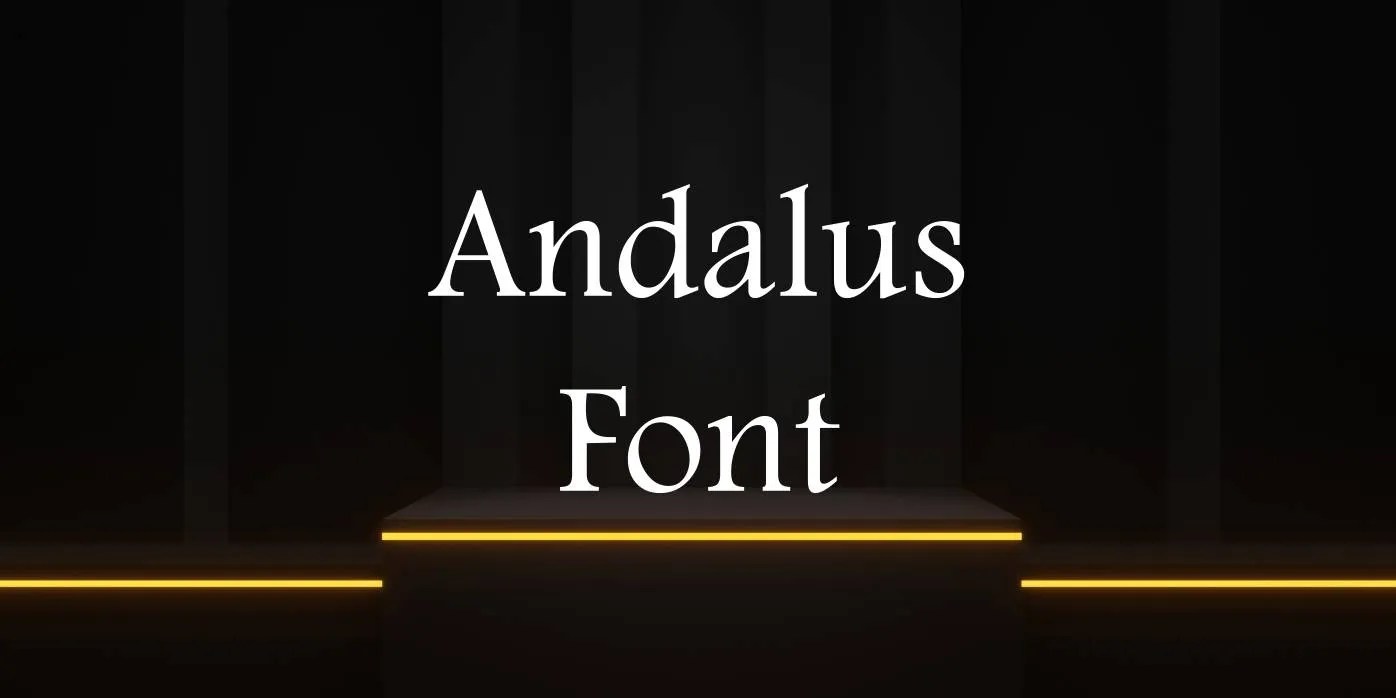
Font Arabic Andalus . Andalus, designed by mohammad alagha and mamoun sakkal and published by microsoft, is a decorative arabic display font released in 2011. Or is it both english & arabic? It has been downloaded 11739 times. Free download of aga andalus أندلس font. Please use the pulldown menu to view different character maps contained in this font. Andalus مجانا في موقع تحميل خطوط عربية عرب فونتس اكبر موقع عربي لتحميل الخطوط خط الاندلس أندلس اندلسي للورد للتصميم andalus.ttf تحميل وتنزيل andalus. 13 users have given the font a rating of 4.23 out of 5. Andalus regular is a regular truetype font. Is andalus font only for arabic? Because when we started to type in english, the font in english looked.
Is andalus font only for arabic? Free download of aga andalus أندلس font. It has been downloaded 11739 times. Or is it both english & arabic? Please use the pulldown menu to view different character maps contained in this font. 13 users have given the font a rating of 4.23 out of 5. Andalus, designed by mohammad alagha and mamoun sakkal and published by microsoft, is a decorative arabic display font released in 2011. Because when we started to type in english, the font in english looked. Andalus regular is a regular truetype font. Andalus مجانا في موقع تحميل خطوط عربية عرب فونتس اكبر موقع عربي لتحميل الخطوط خط الاندلس أندلس اندلسي للورد للتصميم andalus.ttf تحميل وتنزيل andalus.
Font Arabic Andalus مجانا في موقع تحميل خطوط عربية عرب فونتس اكبر موقع عربي لتحميل الخطوط خط الاندلس أندلس اندلسي للورد للتصميم andalus.ttf تحميل وتنزيل andalus. Is andalus font only for arabic? Please use the pulldown menu to view different character maps contained in this font. 13 users have given the font a rating of 4.23 out of 5. Andalus, designed by mohammad alagha and mamoun sakkal and published by microsoft, is a decorative arabic display font released in 2011. It has been downloaded 11739 times. Free download of aga andalus أندلس font. Andalus مجانا في موقع تحميل خطوط عربية عرب فونتس اكبر موقع عربي لتحميل الخطوط خط الاندلس أندلس اندلسي للورد للتصميم andalus.ttf تحميل وتنزيل andalus. Andalus regular is a regular truetype font. Because when we started to type in english, the font in english looked. Or is it both english & arabic?
Arabic Font File at David Ginther blog Font Arabic Andalus Or is it both english & arabic? Please use the pulldown menu to view different character maps contained in this font. It has been downloaded 11739 times. Free download of aga andalus أندلس font. Andalus, designed by mohammad alagha and mamoun sakkal and published by microsoft, is a decorative arabic display font released in 2011. Because when we started to. Font Arabic Andalus.
AlAndalus Middle East Calligraphic Fonts Konstantine Studio Font Arabic Andalus regular is a regular truetype font. Please use the pulldown menu to view different character maps contained in this font. Free download of aga andalus أندلس font. Is andalus font only for arabic? 13 users have given the font a rating of 4.23 out of 5. Andalus مجانا في موقع تحميل خطوط عربية عرب فونتس اكبر موقع عربي لتحميل. Font Arabic Andalus.
Fonts used to generate the APTI database (A) Andalus, (B) Arabic Font Arabic Andalus Because when we started to type in english, the font in english looked. Free download of aga andalus أندلس font. 13 users have given the font a rating of 4.23 out of 5. Is andalus font only for arabic? Andalus مجانا في موقع تحميل خطوط عربية عرب فونتس اكبر موقع عربي لتحميل الخطوط خط الاندلس أندلس اندلسي للورد للتصميم andalus.ttf. Font Arabic Andalus.
Andalus Font Free Download Font Arabic Andalus Free download of aga andalus أندلس font. 13 users have given the font a rating of 4.23 out of 5. Or is it both english & arabic? Please use the pulldown menu to view different character maps contained in this font. Andalus regular is a regular truetype font. Because when we started to type in english, the font in english. Font Arabic Andalus.
30+ Free Arabic Fonts For Graphic Designers Templatefor Font Arabic Andalus It has been downloaded 11739 times. Is andalus font only for arabic? Andalus مجانا في موقع تحميل خطوط عربية عرب فونتس اكبر موقع عربي لتحميل الخطوط خط الاندلس أندلس اندلسي للورد للتصميم andalus.ttf تحميل وتنزيل andalus. Because when we started to type in english, the font in english looked. Please use the pulldown menu to view different character maps contained. Font Arabic Andalus.
Download Andalus Font Free Font Download Font Arabic Andalus 13 users have given the font a rating of 4.23 out of 5. Is andalus font only for arabic? Please use the pulldown menu to view different character maps contained in this font. Andalus regular is a regular truetype font. Andalus مجانا في موقع تحميل خطوط عربية عرب فونتس اكبر موقع عربي لتحميل الخطوط خط الاندلس أندلس اندلسي للورد للتصميم. Font Arabic Andalus.
The great Arabic calligraphic legacy of alAndalus Khatt Foundation Font Arabic Andalus Free download of aga andalus أندلس font. Or is it both english & arabic? Because when we started to type in english, the font in english looked. It has been downloaded 11739 times. Andalus regular is a regular truetype font. 13 users have given the font a rating of 4.23 out of 5. Is andalus font only for arabic? Please. Font Arabic Andalus.